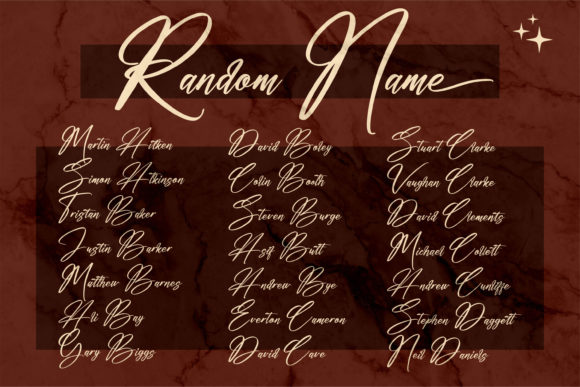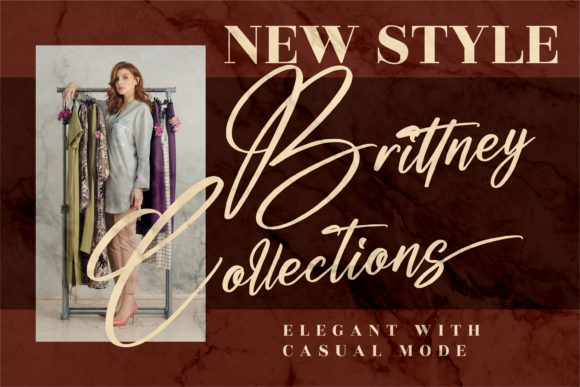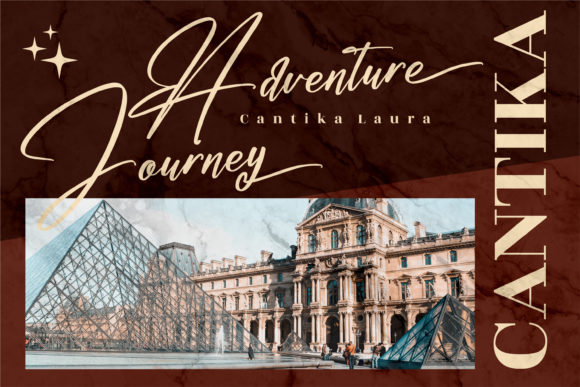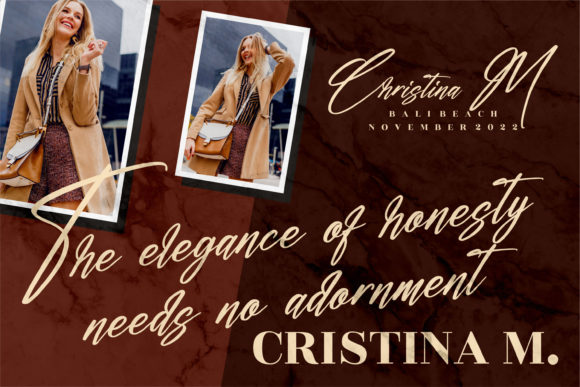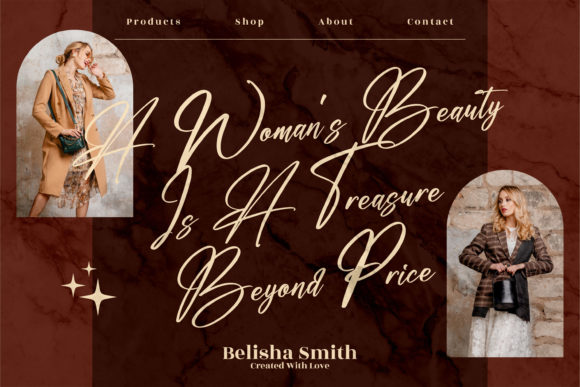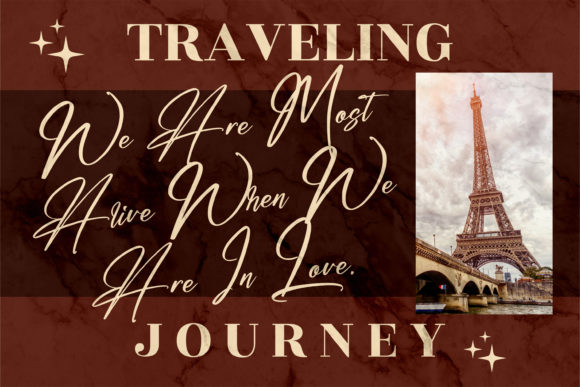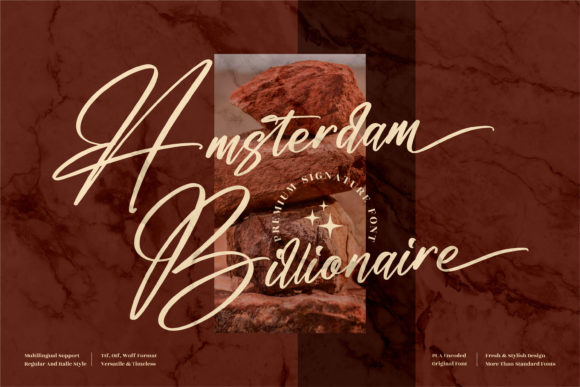
Introducing Amsterdam Billionaire Font: Elevate Your Designs with Luxury and Sophistication
In the world of design, typography plays a crucial role in conveying the tone and personality of a brand or project. For designers and crafters seeking to add a touch of luxury and sophistication to their work, the Amsterdam Billionaire Font is an excellent choice. This modern and sleek script font is perfect for projects that require a premium signature taste, making it ideal for a wide range of applications.
What is Amsterdam Billionaire Font?
Amsterdam Billionaire Font is a contemporary script font designed to bring a sense of elegance and refinement to any project. Its sleek lines, flowing curves, and precise craftsmanship make it an exceptional choice for designers looking to create high-end visuals. Whether you’re working on branding, homeware designs, mugs, quotes, book covers, name cards, meeting cards, or any other project that demands a touch of sophistication, Amsterdam Billionaire Font is the perfect solution.
Key Features of Amsterdam Billionaire Font
- Modern and Sleek Design: Amsterdam Billionaire Font boasts a modern and sleek design that exudes luxury and sophistication.
- Premium Signature Taste: This font is perfect for projects that require a premium signature taste, making it ideal for high-end branding, packaging, and marketing materials.
- Versatile: Amsterdam Billionaire Font can be used for a wide range of projects, including homeware designs, mugs, quotes, book covers, name cards, meeting cards, and more.
- Elegant and Refined: The font’s elegant and refined design makes it perfect for creating sophisticated visuals that leave a lasting impression.
Use Cases for Amsterdam Billionaire Font
Amsterdam Billionaire Font is an incredibly versatile font that can be used for various design projects. Here are some use cases where this font truly shines:
- Branding: Create a luxurious brand identity with Amsterdam Billionaire Font, perfect for high-end fashion, beauty, and lifestyle brands.
- Homeware Designs: Add a touch of sophistication to your homeware designs, such as cushions, tote bags, and ceramics.
- Mugs and Drinkware: Elevate your mug and drinkware designs with Amsterdam Billionaire Font, perfect for creating unique and stylish products.
- Quotes and Typography: Use Amsterdam Billionaire Font to create stunning quote posters, social media graphics, and typographic designs.
- Book Covers and Publishing: Add a touch of luxury to your book covers, journals, and publishing materials with Amsterdam Billionaire Font.
Why Choose Amsterdam Billionaire Font?
With so many fonts available, why choose Amsterdam Billionaire Font? Here are a few reasons why this font stands out:
- Unique and Exclusive: Amsterdam Billionaire Font is a unique and exclusive font that will set your designs apart from the rest.
- High-Quality Design: The font is designed with precision and attention to detail, ensuring a high-quality finish.
In conclusion, Amsterdam Billionaire Font is an exceptional choice for designers and crafters seeking to add a touch of luxury and sophistication to their work. With its modern and sleek design, premium signature taste, and versatility, this font is perfect for a wide range of projects. Whether you’re working on branding, homeware designs, mugs, quotes, book covers, or any other project, Amsterdam Billionaire Font is sure to elevate your designs and leave a lasting impression.